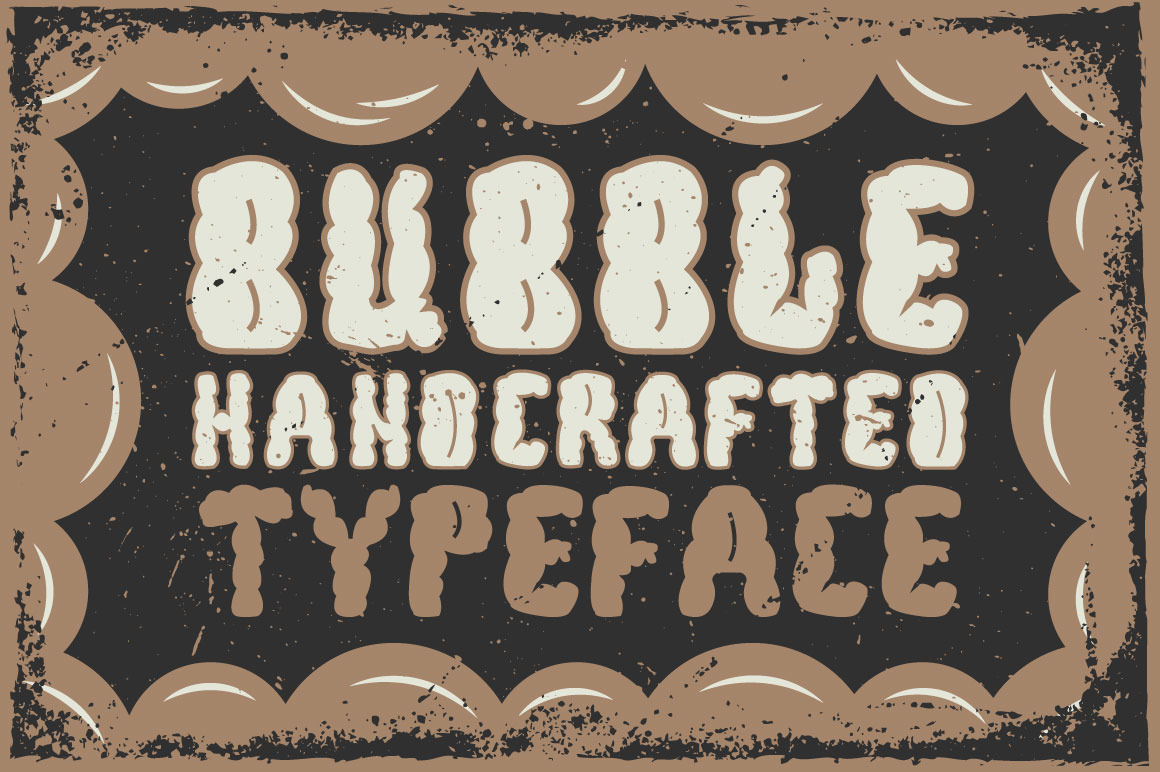
Handcrafted "Bubble" font
Introducing a vintage label typeface called "Bubble". It's made in bubble and vintage label style. Typeface looks great on any label designs and t-shirts.